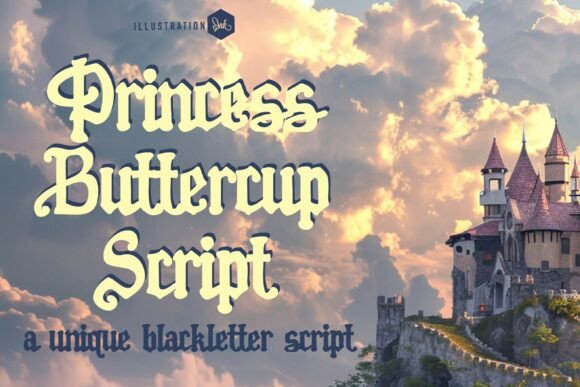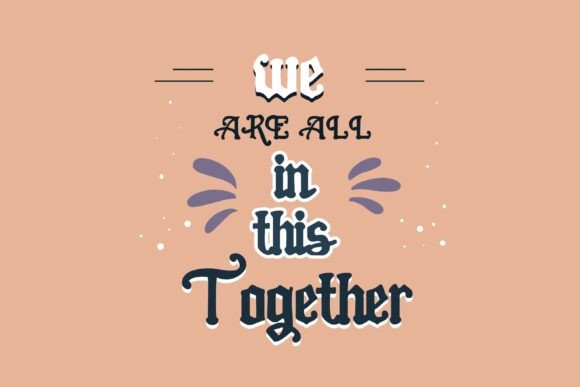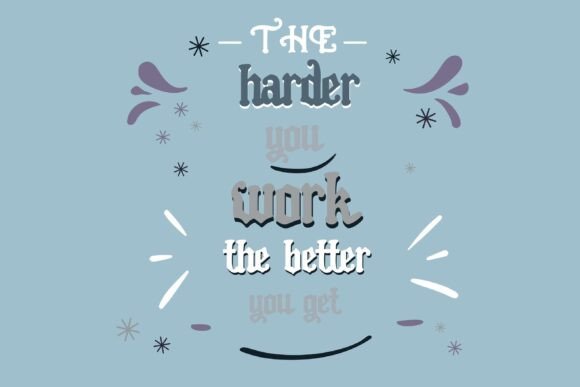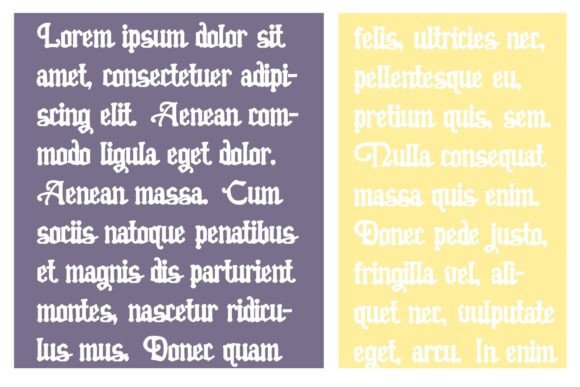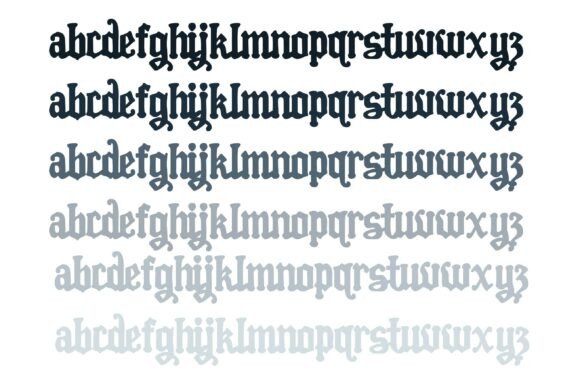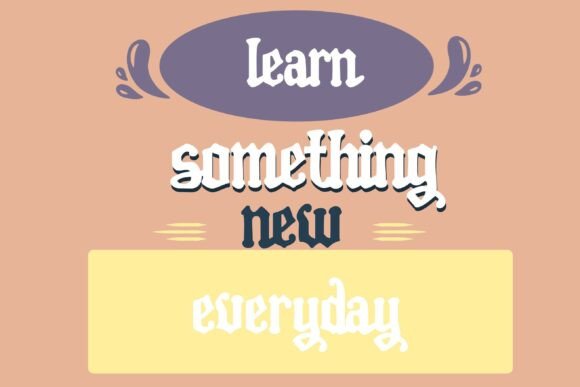
Pn Princess Buttercup Script Fn Font
Princess Buttercup Script is a whimsical take on the traditional blackletter style, combining medieval flair with fairytale softness. Its letterforms feature the iconic sharp strokes and dramatic contrast of blackletter fonts, yet softened with curly terminals, rounded edges, and flowing connections that bring a storybook charm. This unique hybrid between gothic script and fantasy lettering creates a sense of romantic nostalgia, making it perfect for enchanted themes, fantasy titles, vintage fairytales, and whimsical branding. With its bold presence and ornate detailing, Princess Buttercup Script stands out with elegance and playfulness.